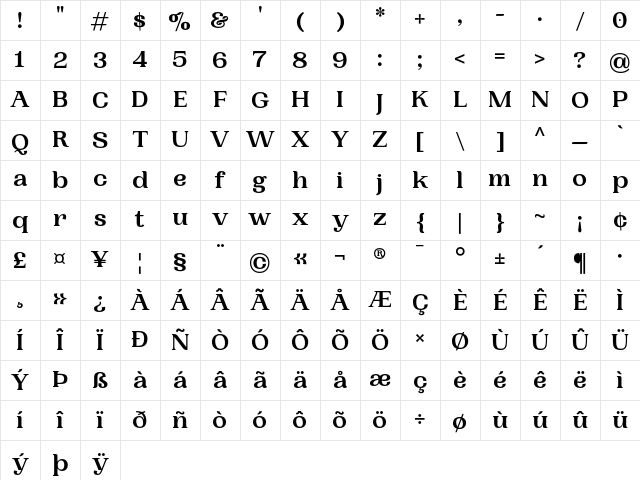
Complete PP Woodland Bold glyph index. Displaying only characters natively supported by PP Woodland Bold font.
PP Woodland echoes the hand-painted signage and woodblock typography of the American frontier, with a warm, rugged personality. Its bold stroke weight gives it real presence on the page.
Font Pairing: Combine PP Woodland with a simple slab or neutral sans - period-accurate companions reinforce the vintage feel without competing for attention.
Pro Tip: Use PP Woodland for short, impactful bursts of text - it shines in poster headlines and product names rather than extended copy.